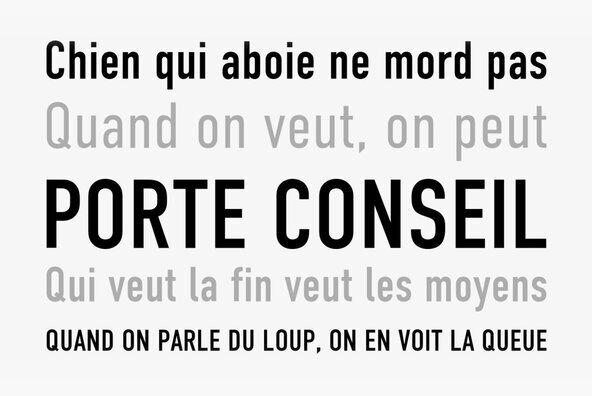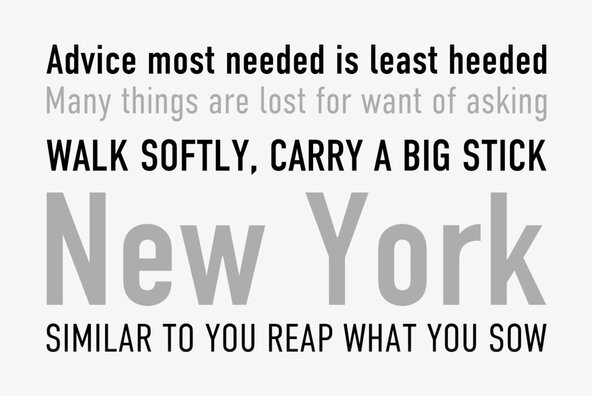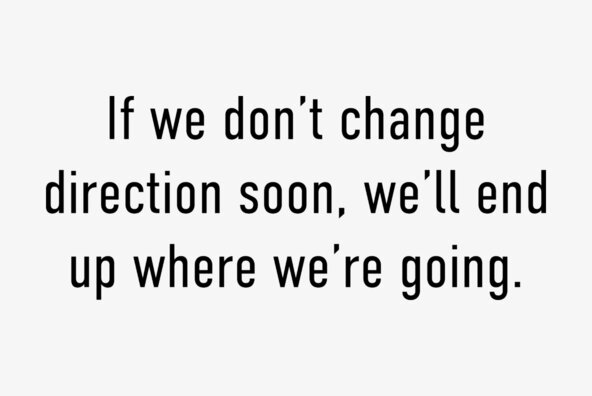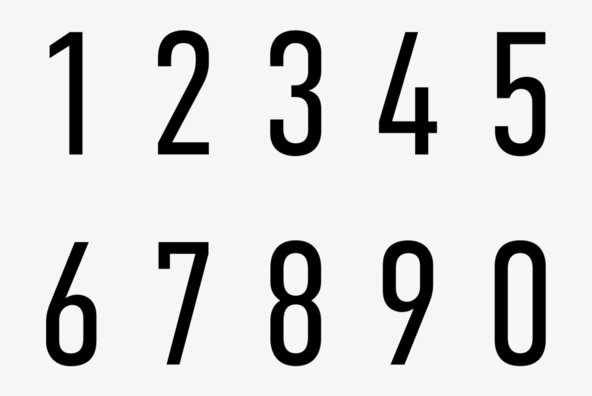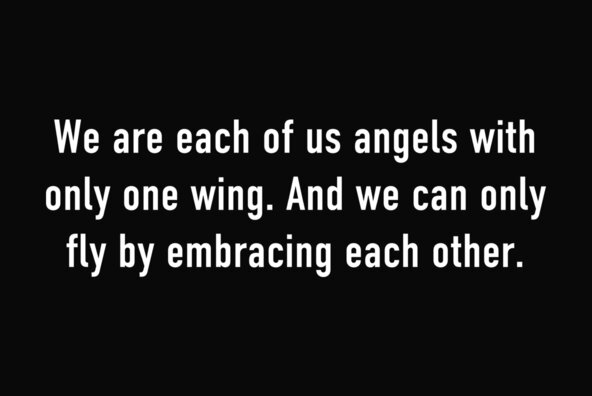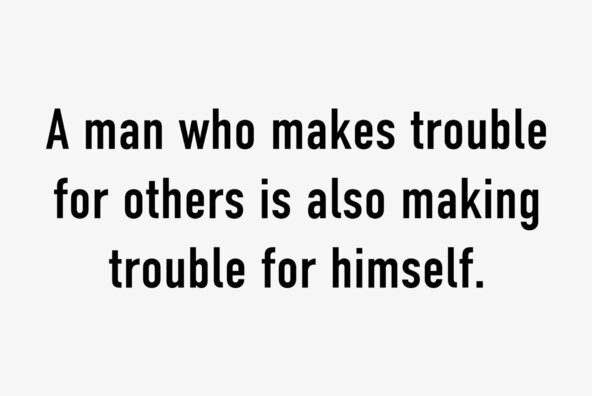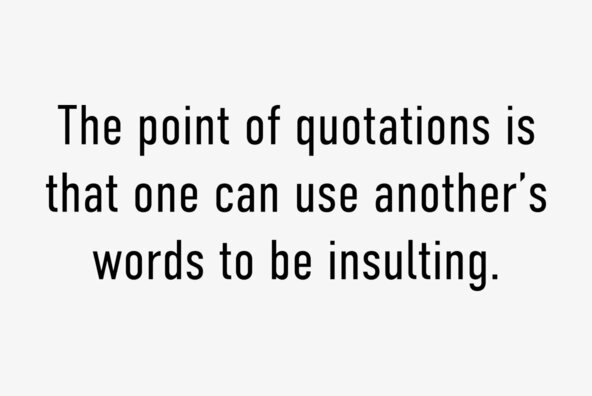
DIN Condensed DIN Condensed
Designed at ParaType (ParaGraph) in 1997 by Tagir Safayev. Based on a condensed style of DIN type family (Linotype Staff designers). That is a group of sans serif faces made to conform to the German Industrial Standard. Based on geometric style, they vary in width but not in weight.